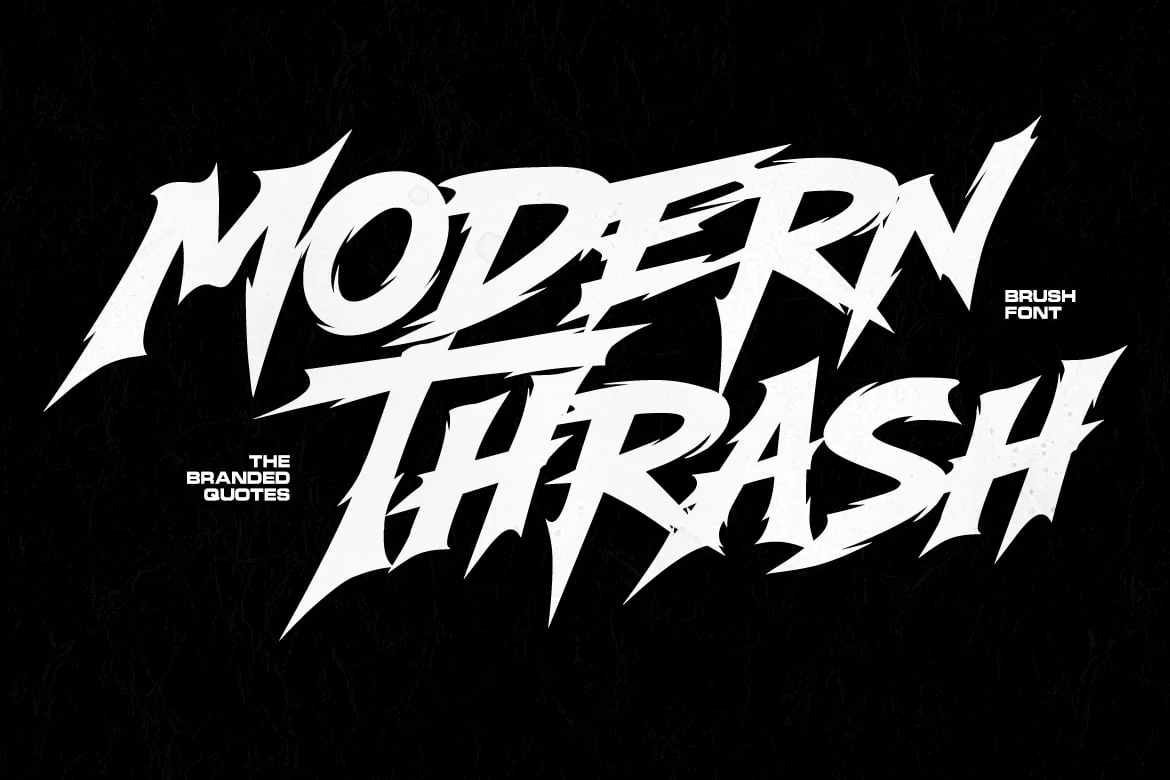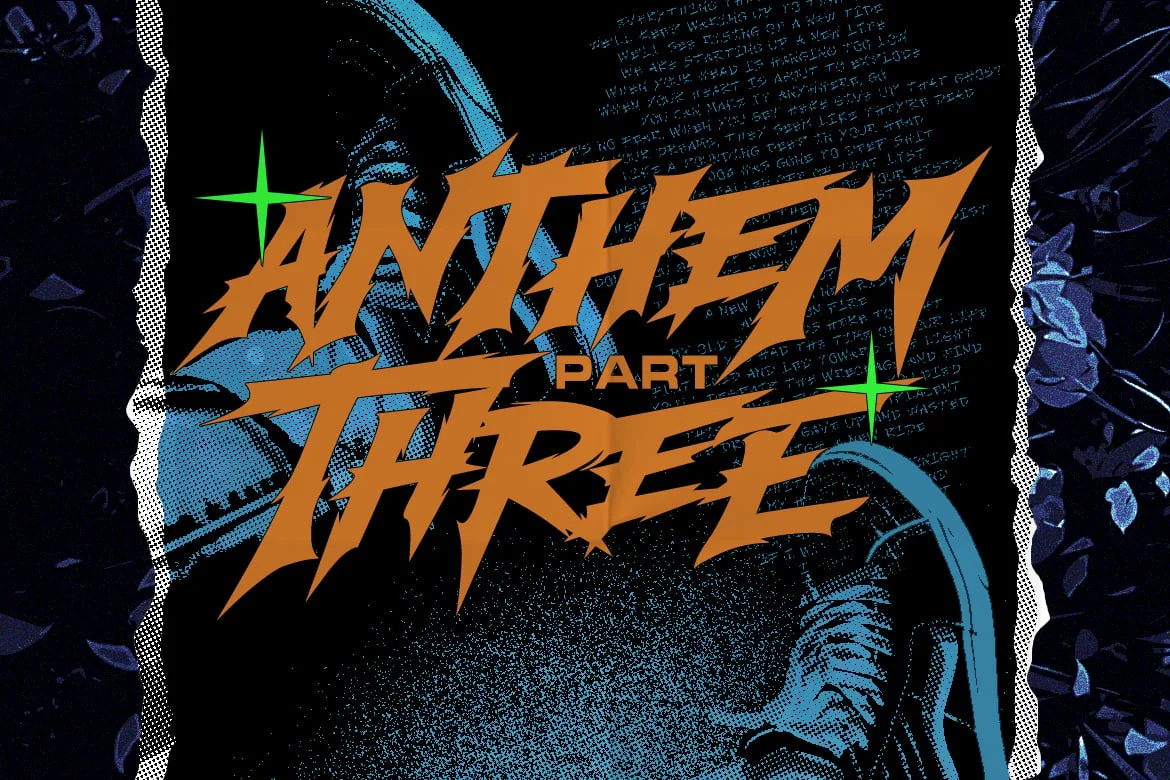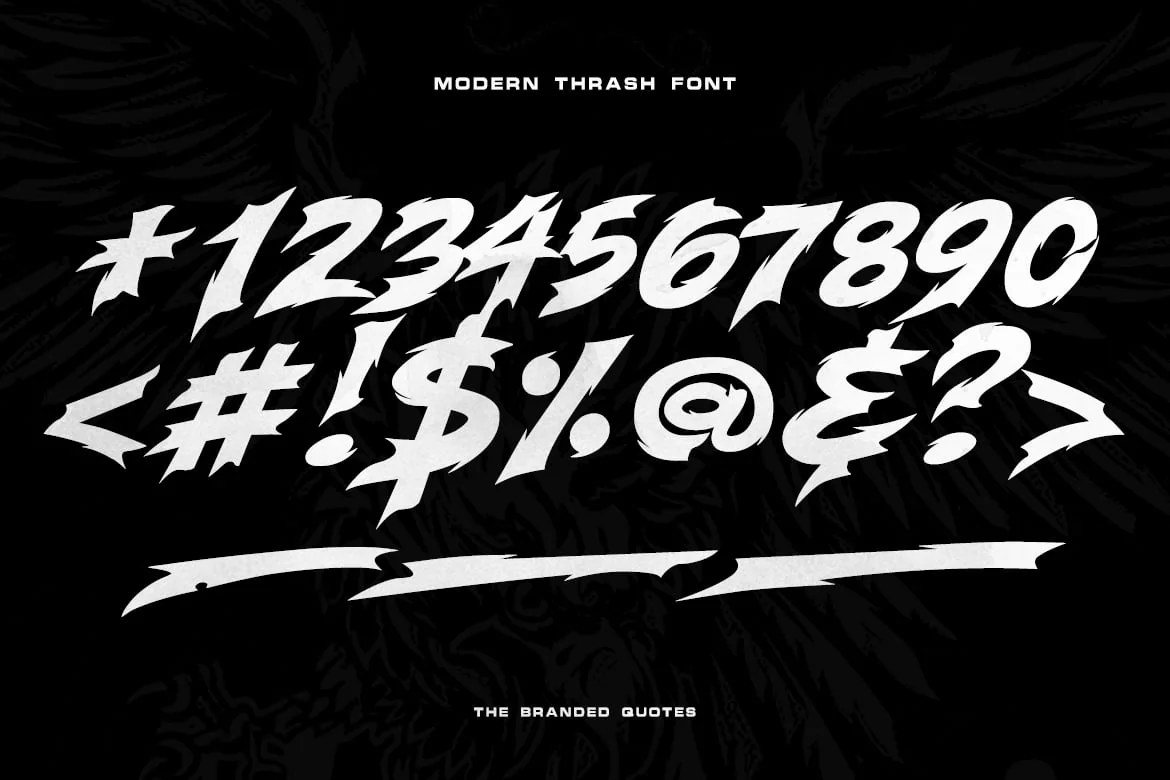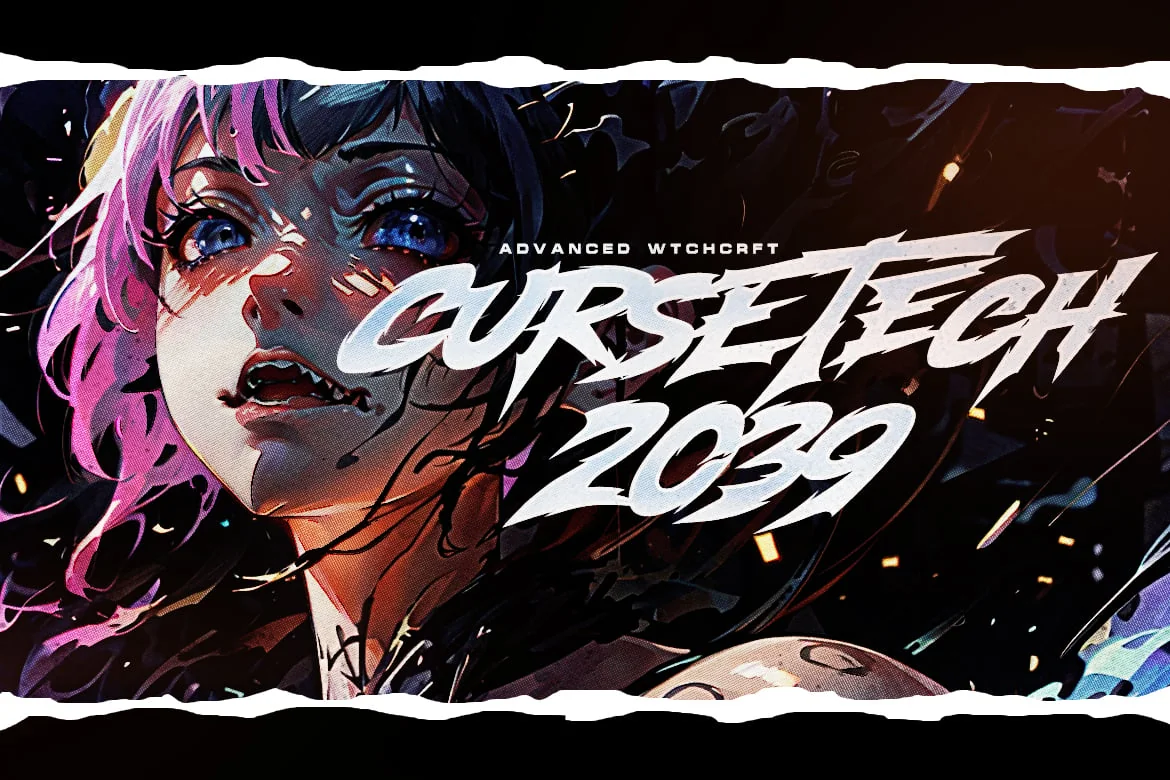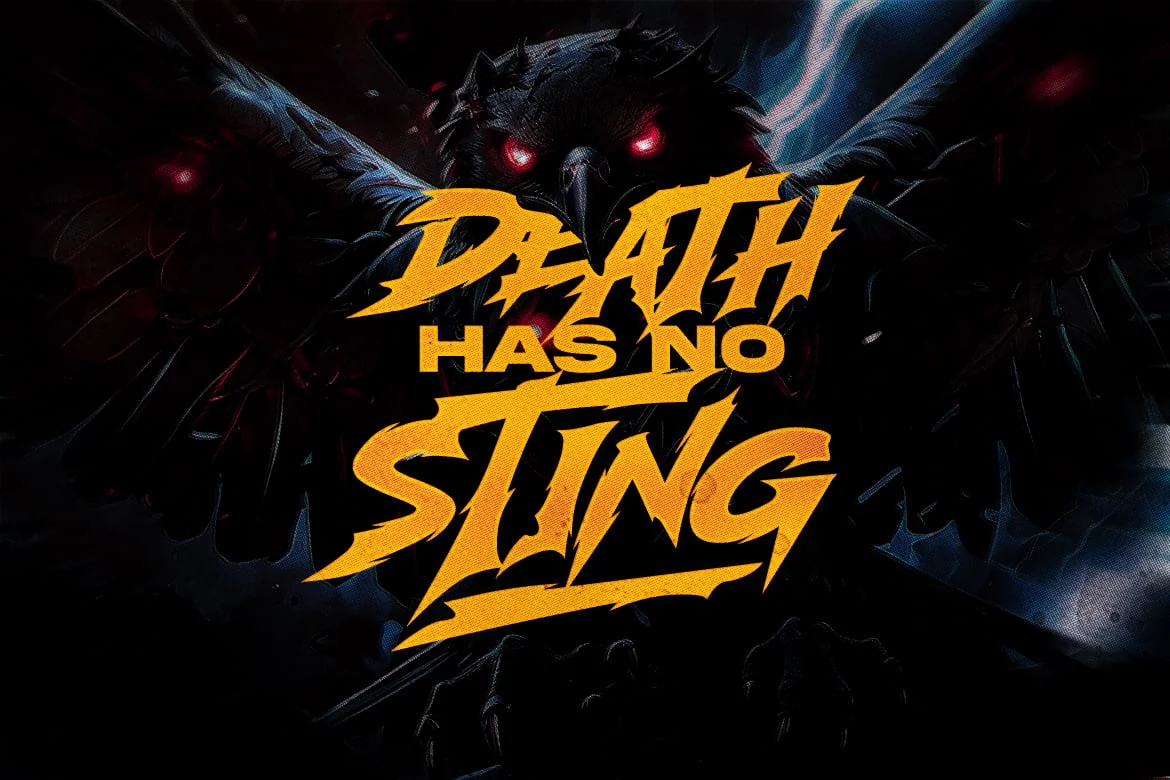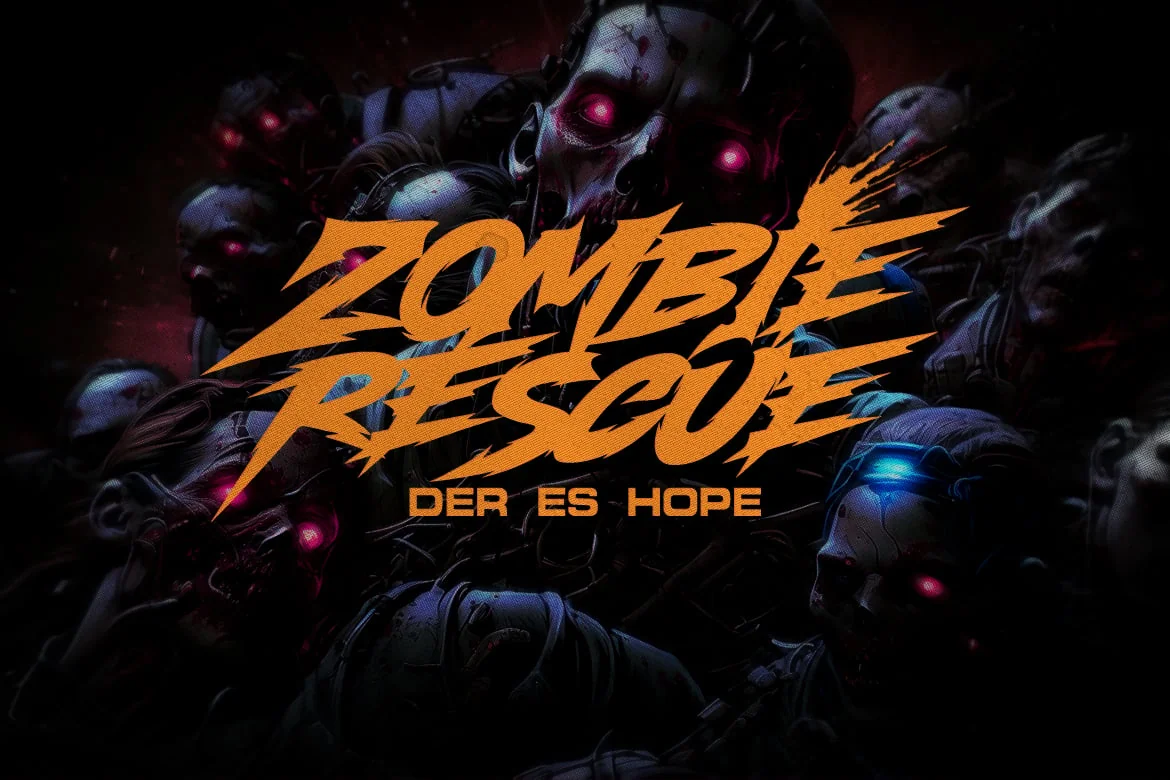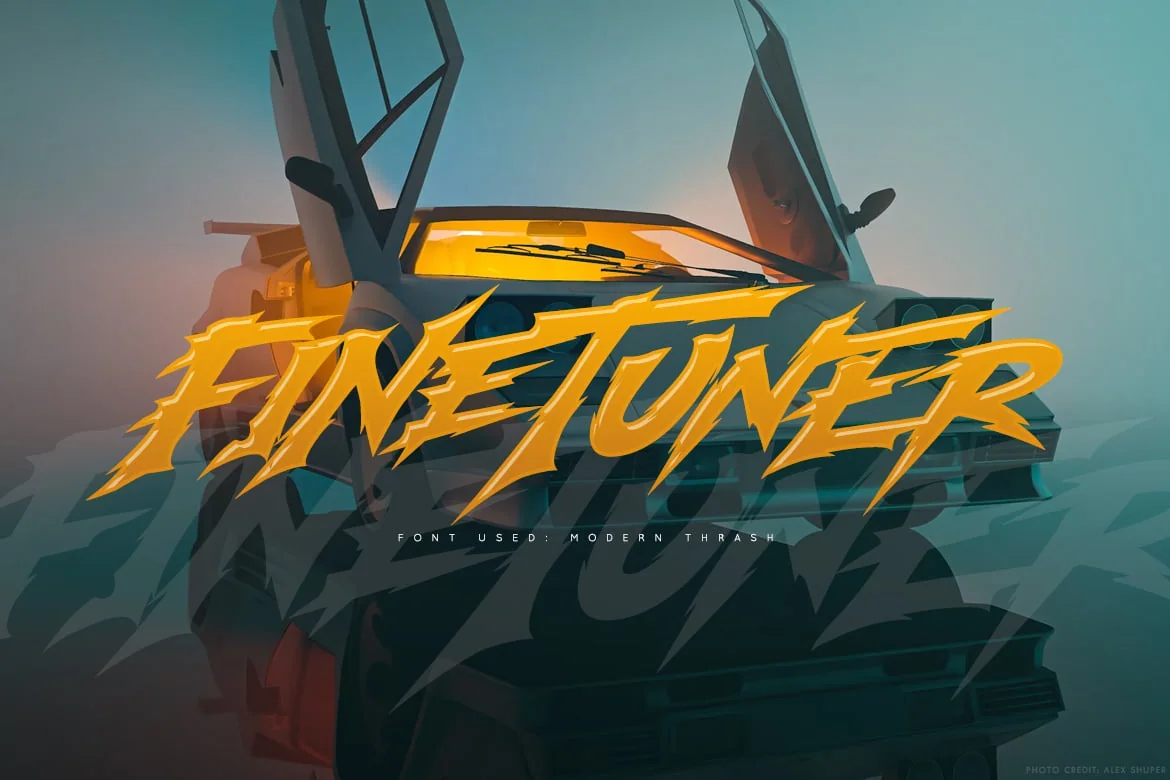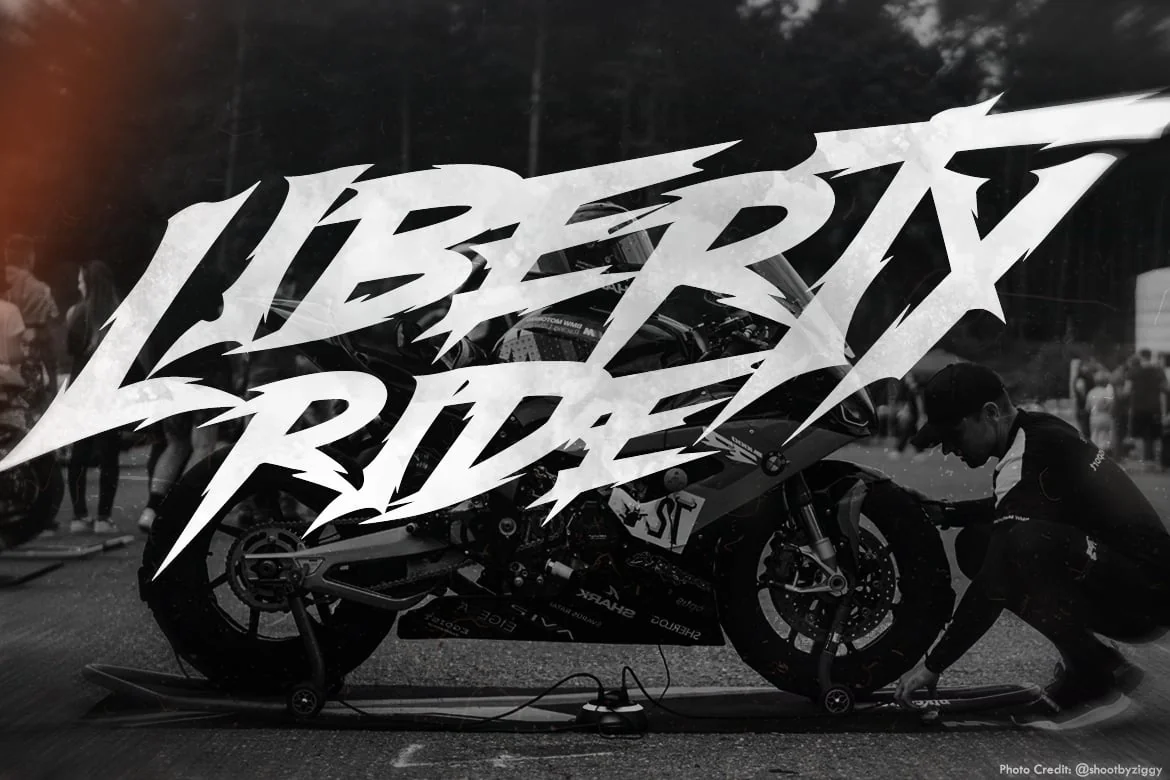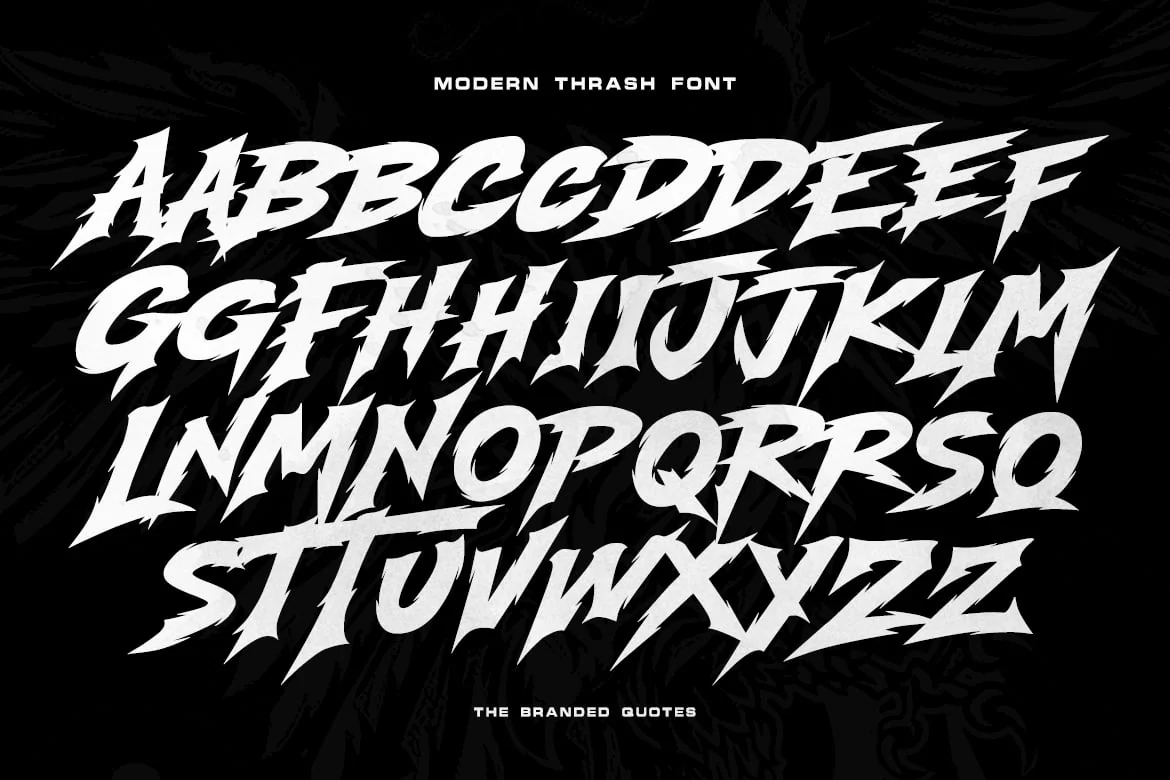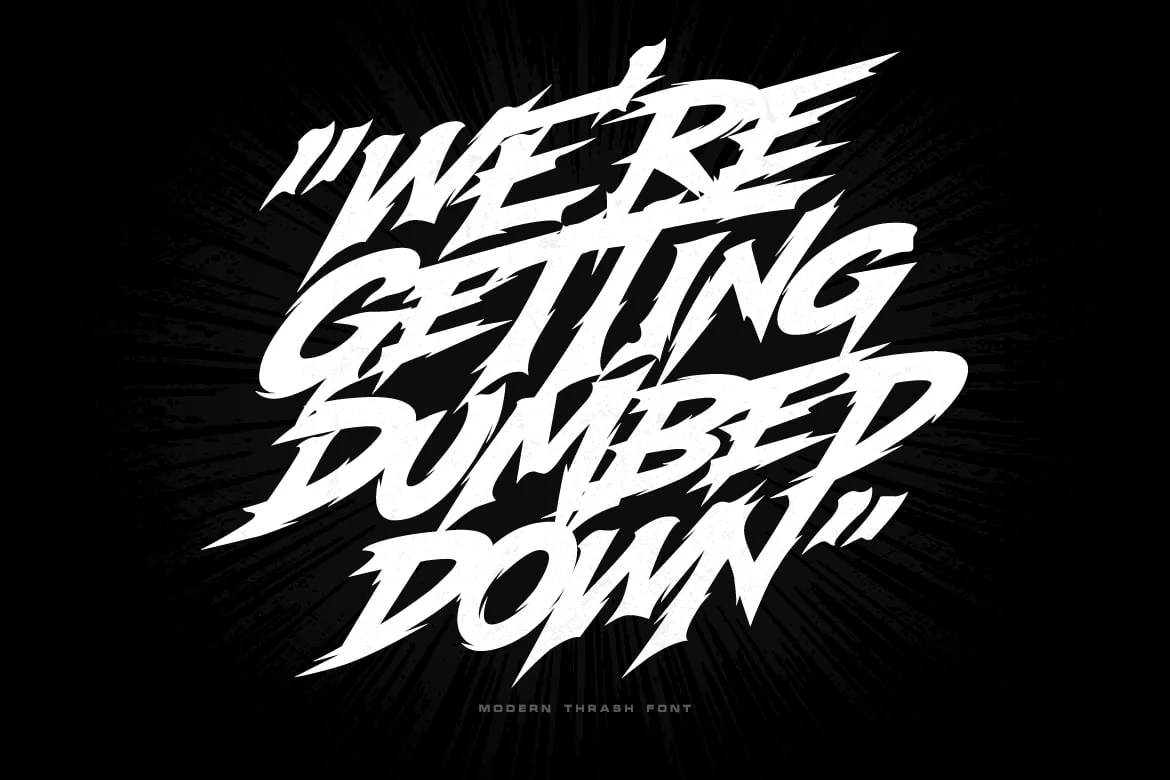
Modern Thrash Font
The thrilling energy of this font will fulfill the void that every graphic illustrators, digital artists, video editors, hardcore and metalheads have been craving. Experience a satisfying feeling as you type using Modern Thrash Font into your projects!